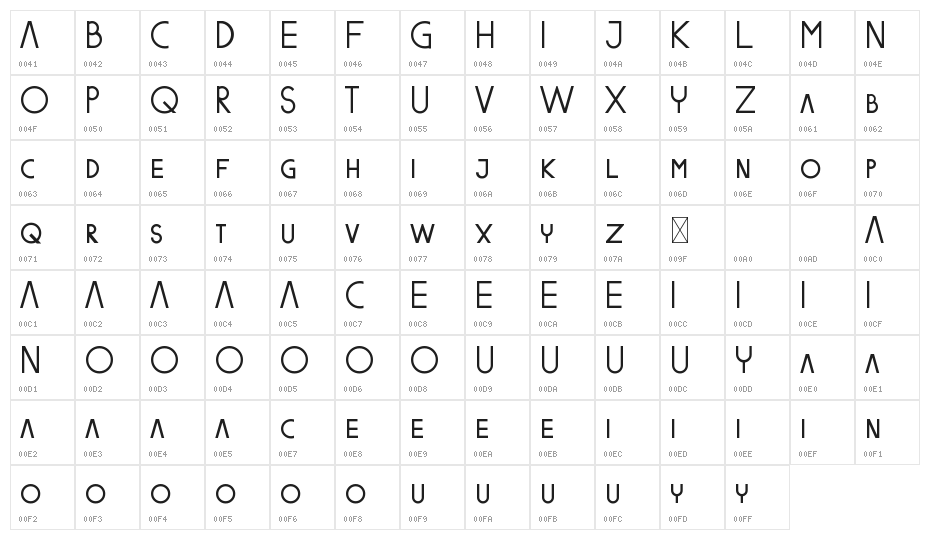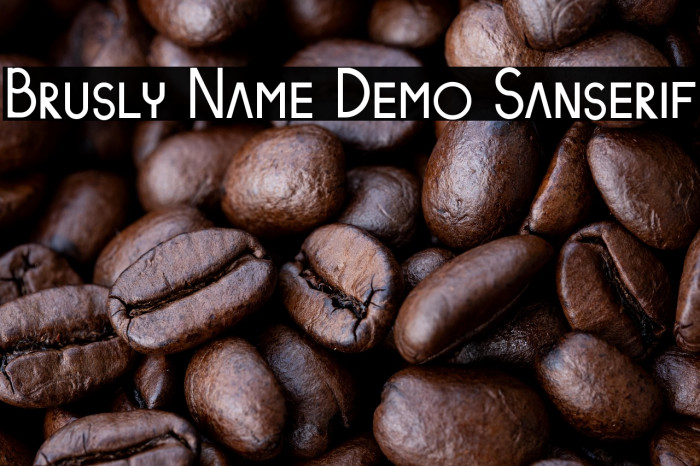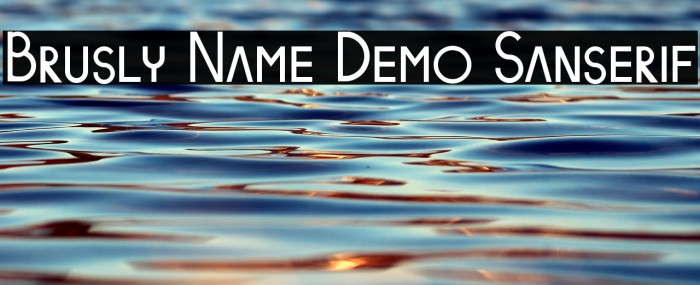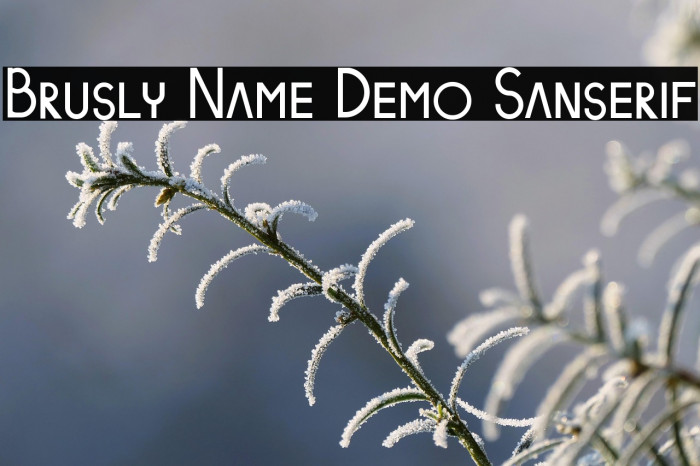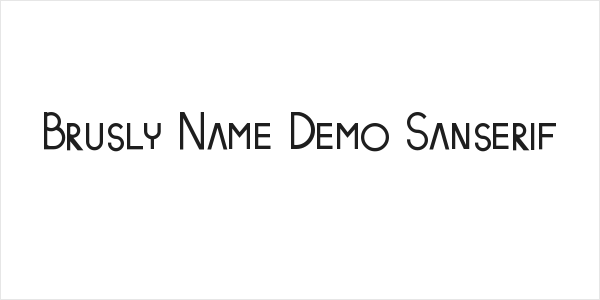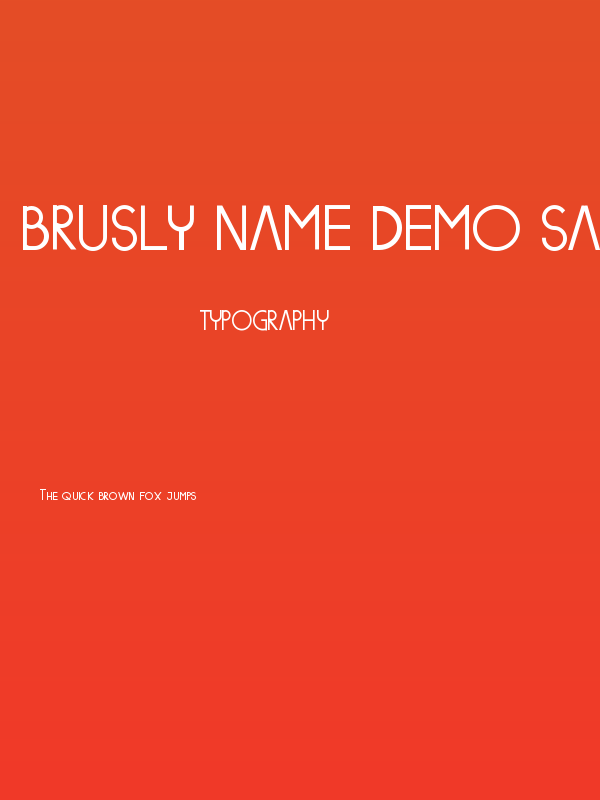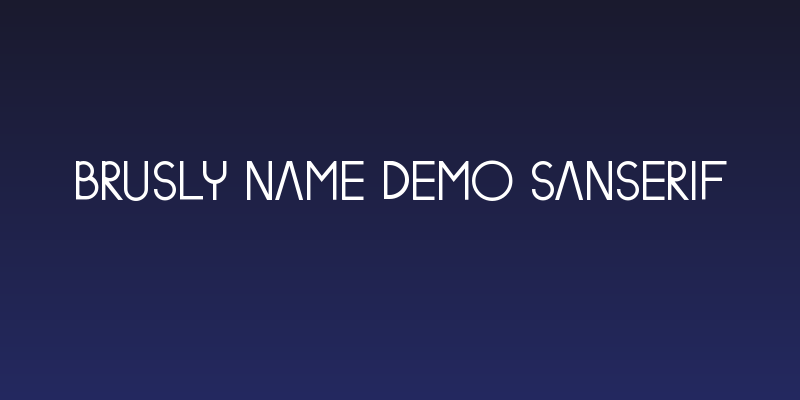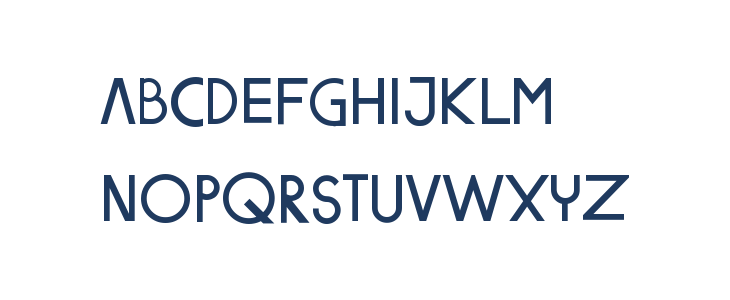
Brusly Name Demo Sanserif Font
Brusly Name Demo Sanserif Description
This font features a clean and modern sans-serif style with geometric influences. The characters are crafted with precision, showcasing straight lines and sharp angles that contribute to a contemporary aesthetic. The uniform stroke width across all characters ensures a balanced and harmonious appearance. The uppercase letters exhibit a consistent height, while the lowercase letters maintain a similar width, enhancing readability. The font's simplicity and clarity make it versatile for various design applications. Its minimalistic design is suitable for projects that require a modern and professional look.